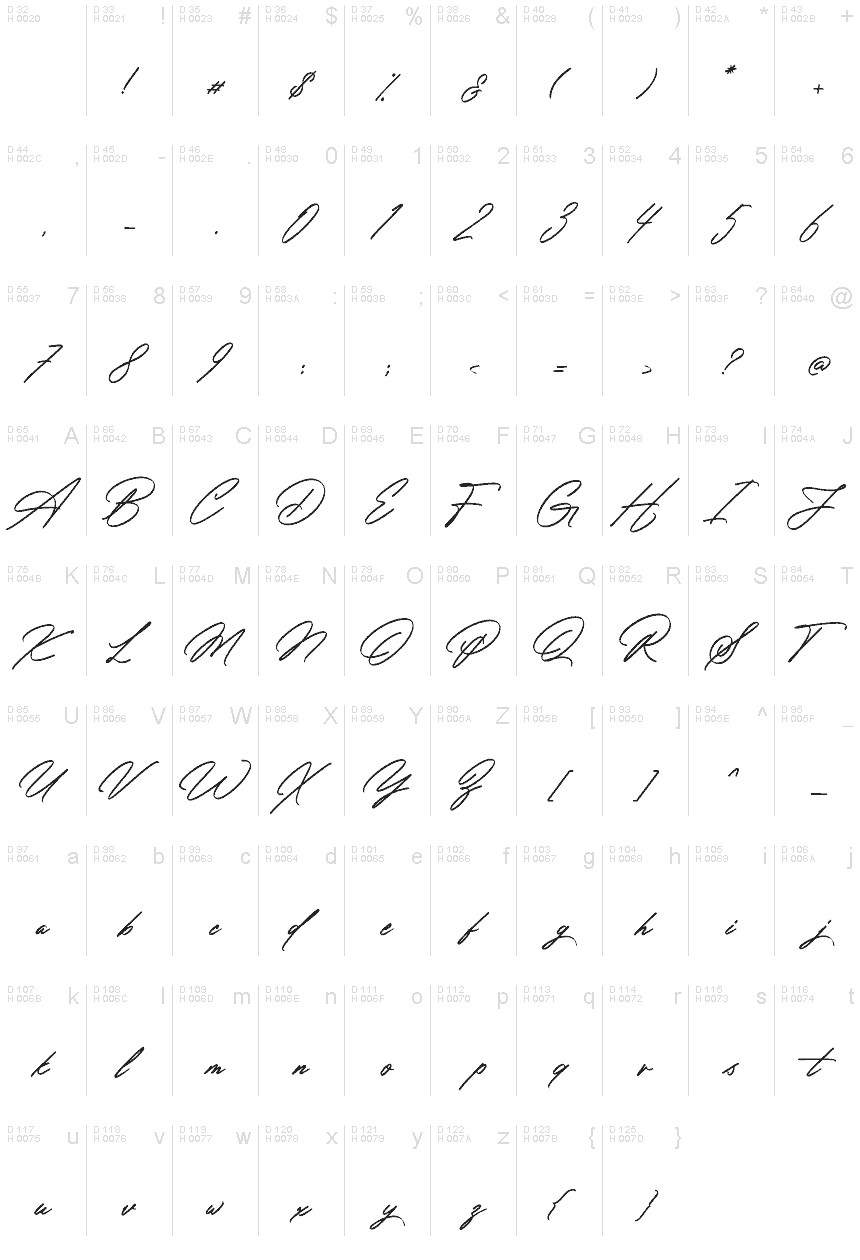
Amsterday Signature
Amsterday Signature font by Typeline Studio is an elegant and sophisticated handwritten typeface. Featuring a light, condensed appearance, this flowing font has a classic influence while also adding an expressive personal touch to designs. Its thin curves and subtle forms communicate instantly with charisma and style.